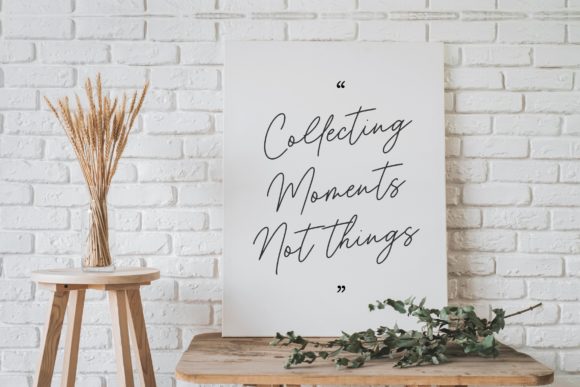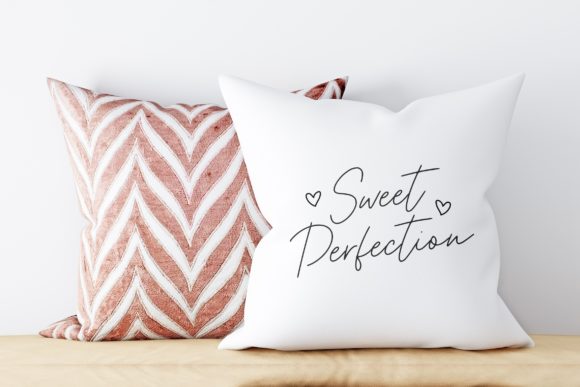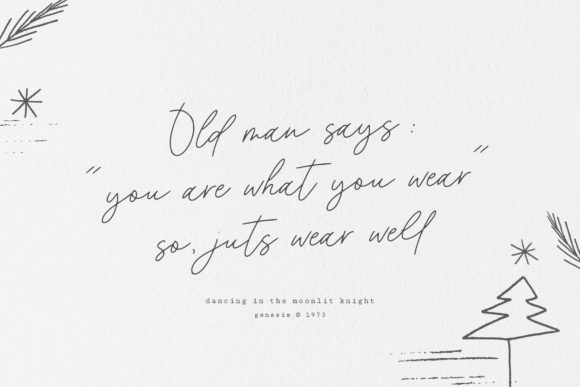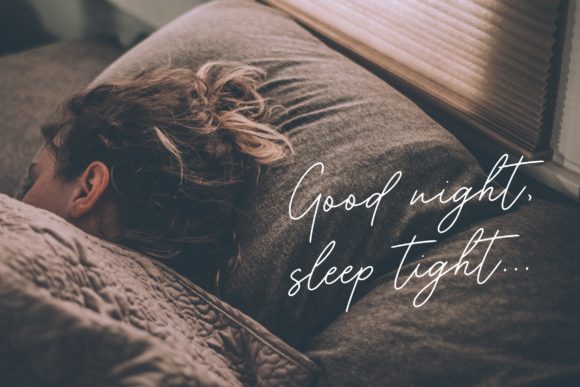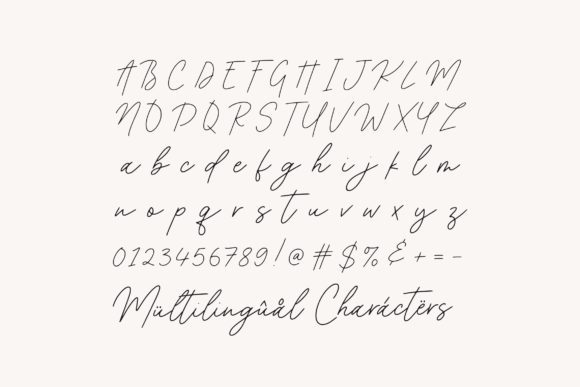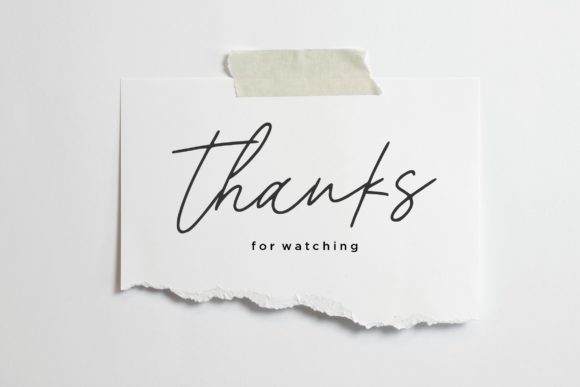
Introducing Acoustica Font: Elevate Your Designs with Elegance and Class
Are you tired of using the same old fonts in your designs? Do you want to add a touch of elegance and sophistication to your projects? Look no further than Acoustica Font, a lovely and delicate script font that exudes refinement and poise. In this article, we’ll dive into the world of Acoustica Font, exploring its features, benefits, and uses, and why it’s the perfect choice for designers and crafters looking to elevate their designs.
What is Acoustica Font?
Acoustica Font is a beautifully crafted script font designed to bring a fresh and refreshing look to your designs. Its delicate strokes and elegant curves make it perfect for a variety of projects, from wedding invitations and branding materials to packaging and digital media. This font is particularly suited for designers and crafters who want to add a touch of sophistication and luxury to their work.
Key Features of Acoustica Font
- Elegant and Delicate Design: Acoustica Font boasts a stunning script design that exudes elegance and refinement.
- Highly Versatile: This font is perfect for a wide range of projects, from print materials to digital media.
- Easy to Read: Despite its delicate nature, Acoustica Font is highly legible, making it suitable for body text and headlines.
- Unique and Distinctive: Acoustica Font has a unique and distinctive style that sets it apart from other script fonts.
Benefits of Using Acoustica Font
So, why choose Acoustica Font for your designs? Here are just a few benefits of using this stunning script font:
- Adds Elegance and Sophistication: Acoustica Font instantly elevates your designs, adding a touch of luxury and refinement.
- Enhances Readability: The clear and legible design of Acoustica Font ensures that your text is easy to read, even at small sizes.
- Perfect for Branding: Acoustica Font is ideal for branding materials, such as logos, business cards, and letterheads.
- Great for Creative Projects: Whether you’re working on a DIY craft project or a professional design, Acoustica Font is the perfect choice.
How to Use Acoustica Font in Your Designs
Using Acoustica Font in your designs is easy! Here are a few tips to get you started:
- Pair it with Bold Fonts: Combine Acoustica Font with bold, sans-serif fonts for a striking contrast.
- Use it for Headlines and Titles: Acoustica Font is perfect for headlines and titles, adding a touch of elegance and sophistication.
- Add it to Your Branding Materials: Use Acoustica Font in your branding materials, such as logos, business cards, and letterheads.
- Experiment with Colors and Textures: Try pairing Acoustica Font with different colors and textures to create a unique look.
In conclusion, Acoustica Font is a stunning script font that exudes elegance and class. Its delicate design, versatility, and readability make it perfect for a wide range of projects, from branding materials to creative projects. Whether you’re a designer or crafter, Acoustica Font is the perfect choice for adding a touch of sophistication and luxury to your work. So why wait? Download Acoustica Font today and elevate your designs to the next level!